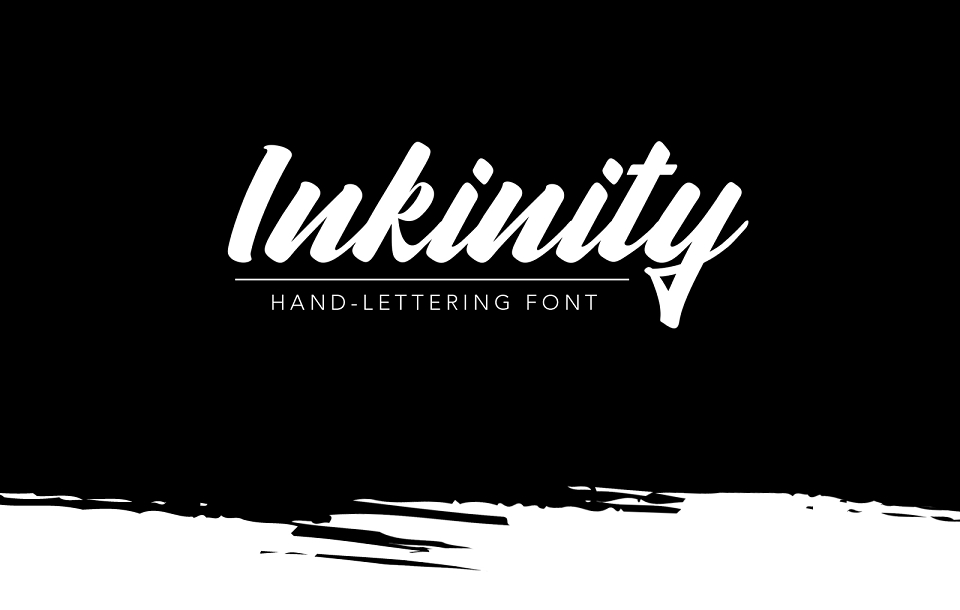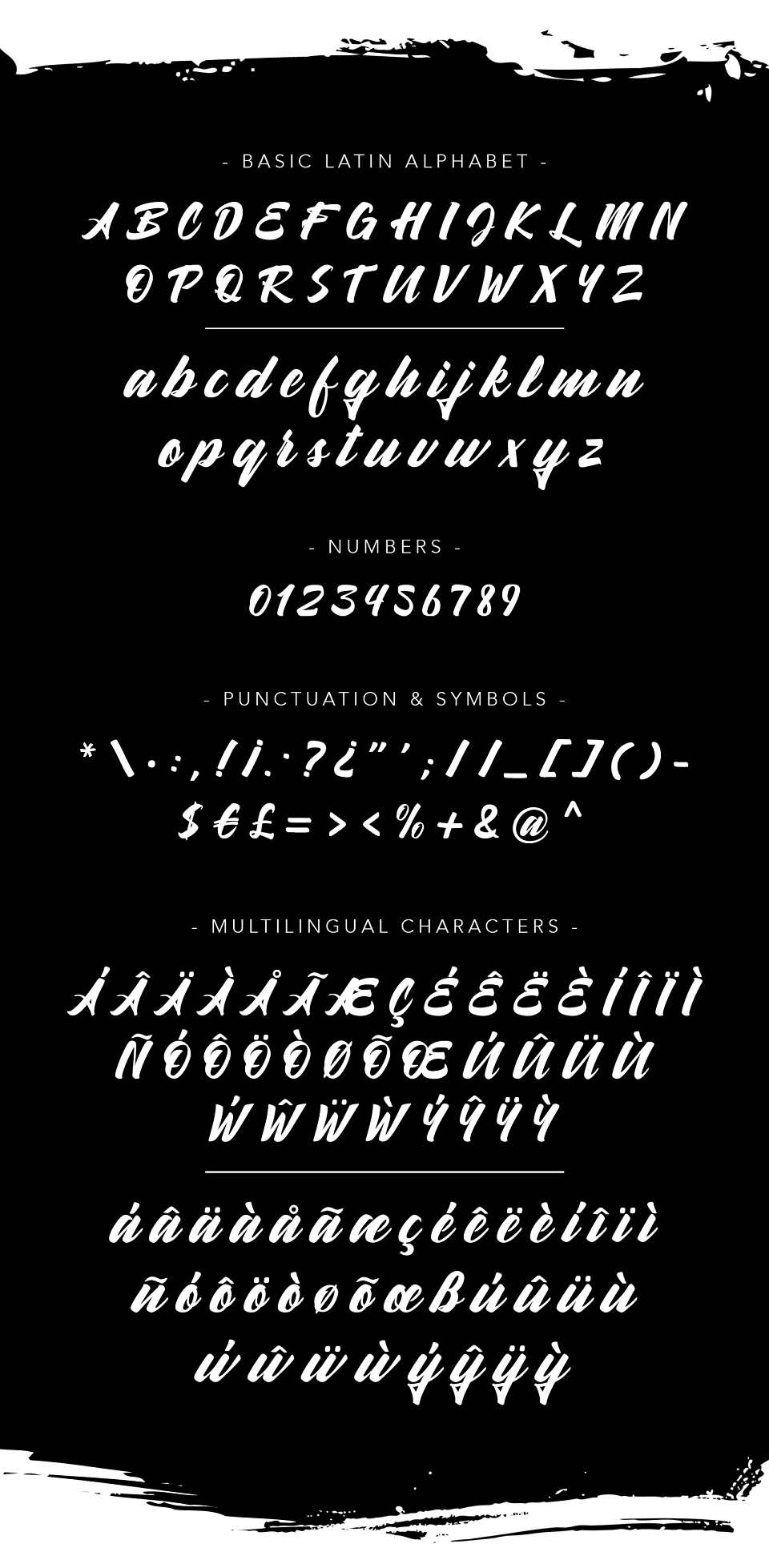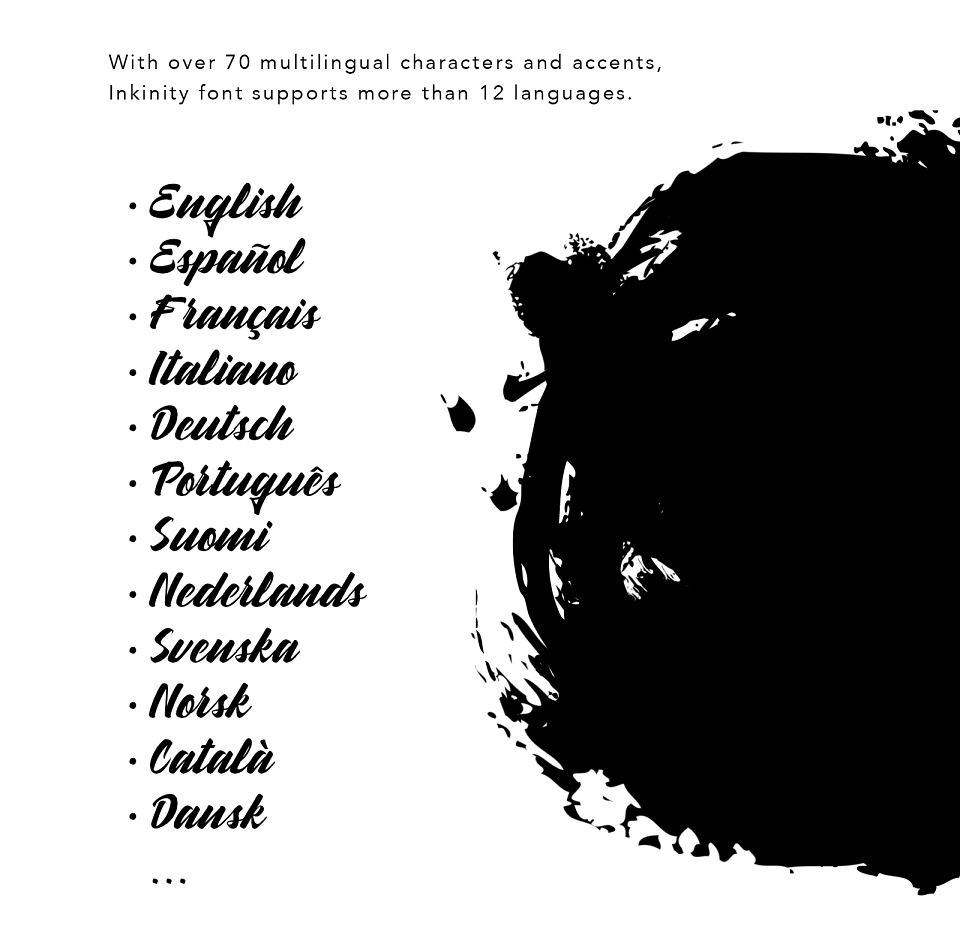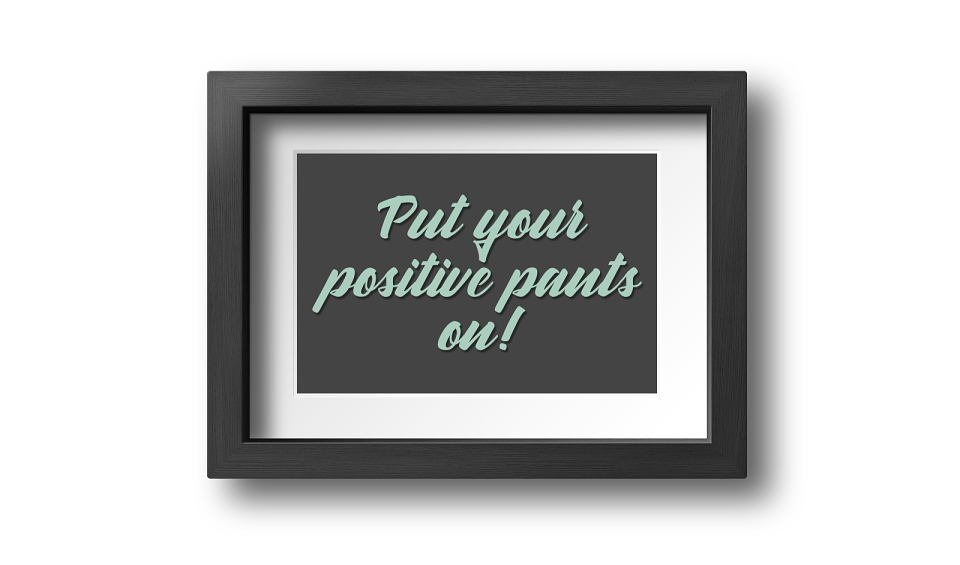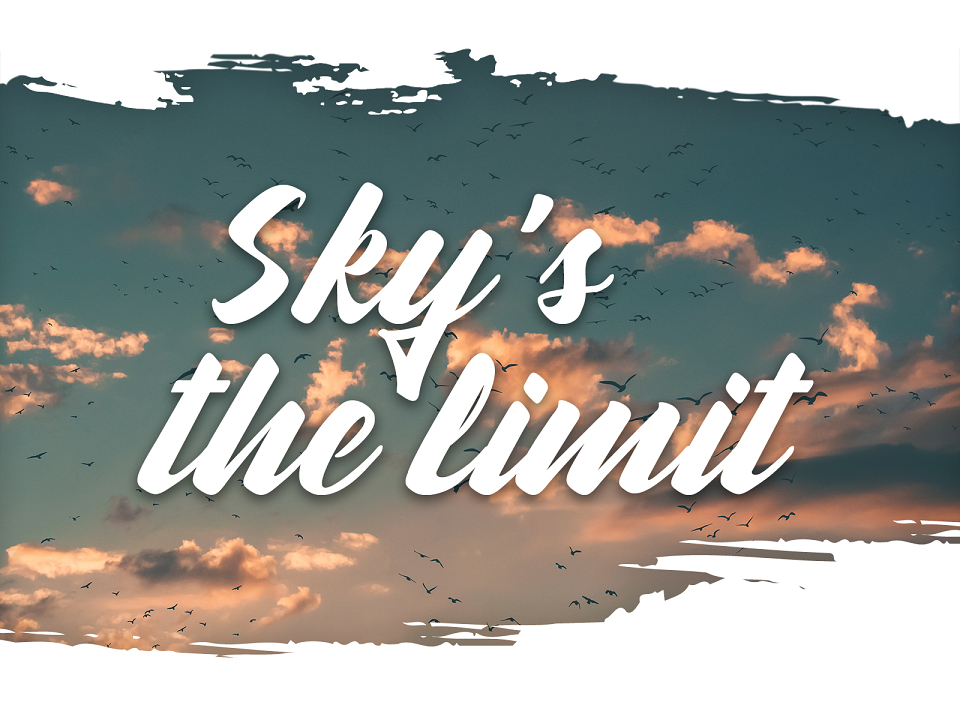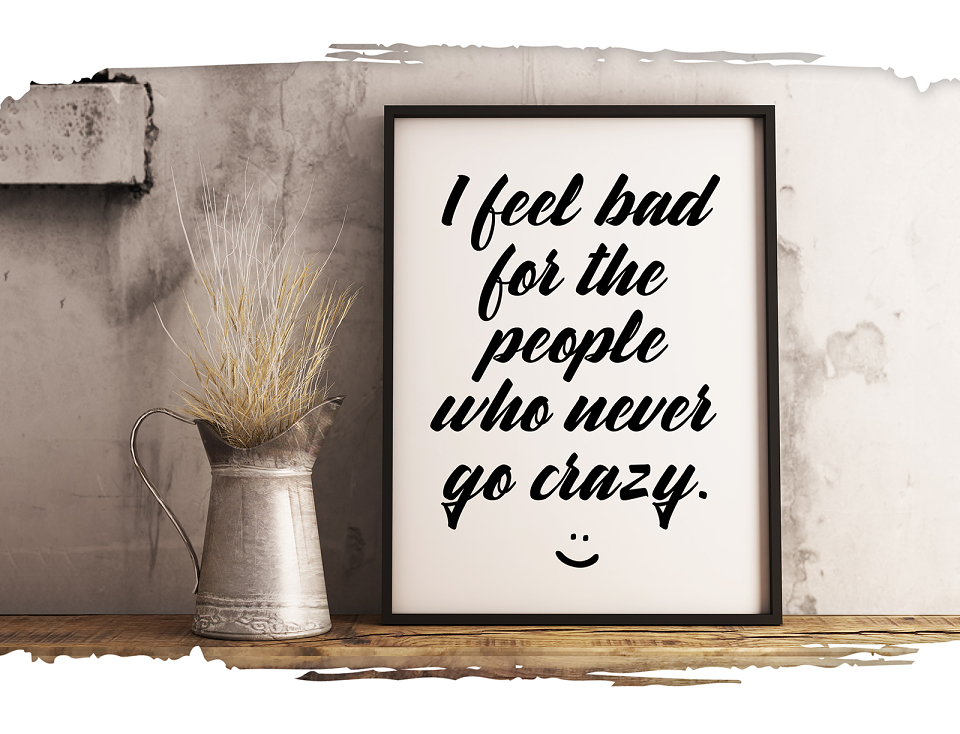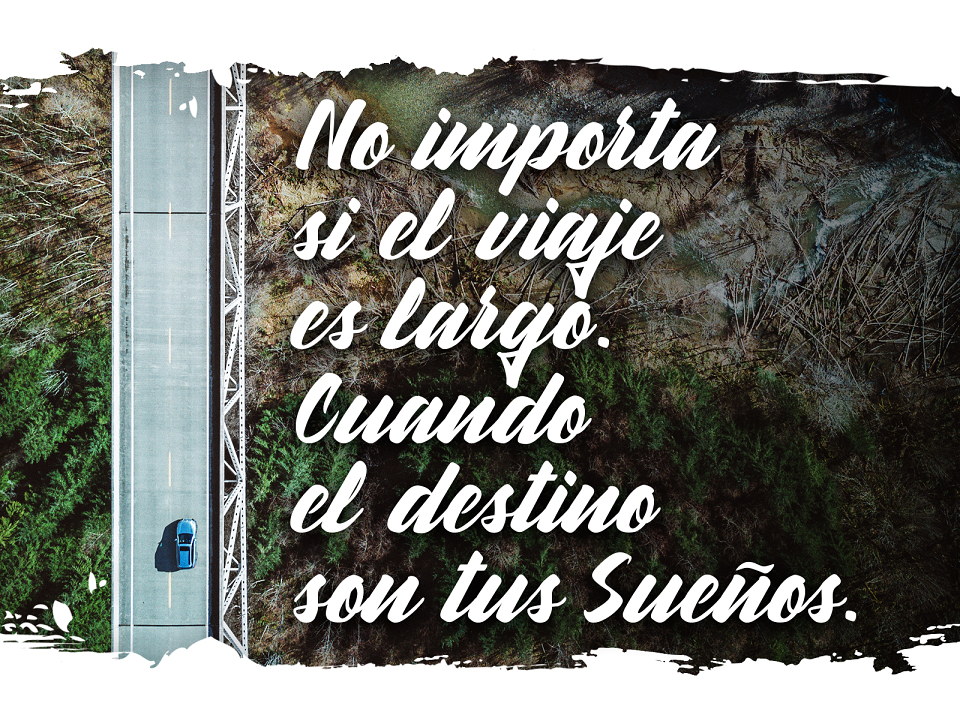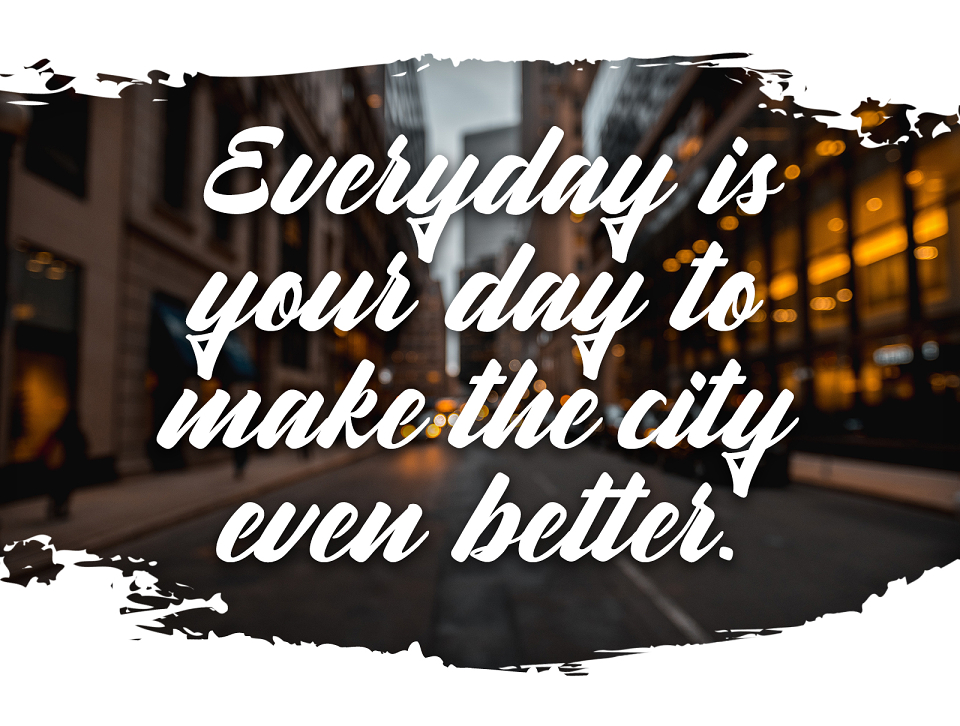
Introducing Inkinity, a hand-lettering font created from ink and paper to digital vector.
This typeface includes all uppercase and lowercase letters, numerals, punctuation, symbols and multilingual characters.
With over 70 multilingual characters and accents, Inkinity font supports more than 12 languages as English​, Spanish, French, Italian, German, Swedish, Danish, Norwegian, Portuguese, Catalan, Finnish, Dutch among others.
Inkinity | Hand-lettering Font